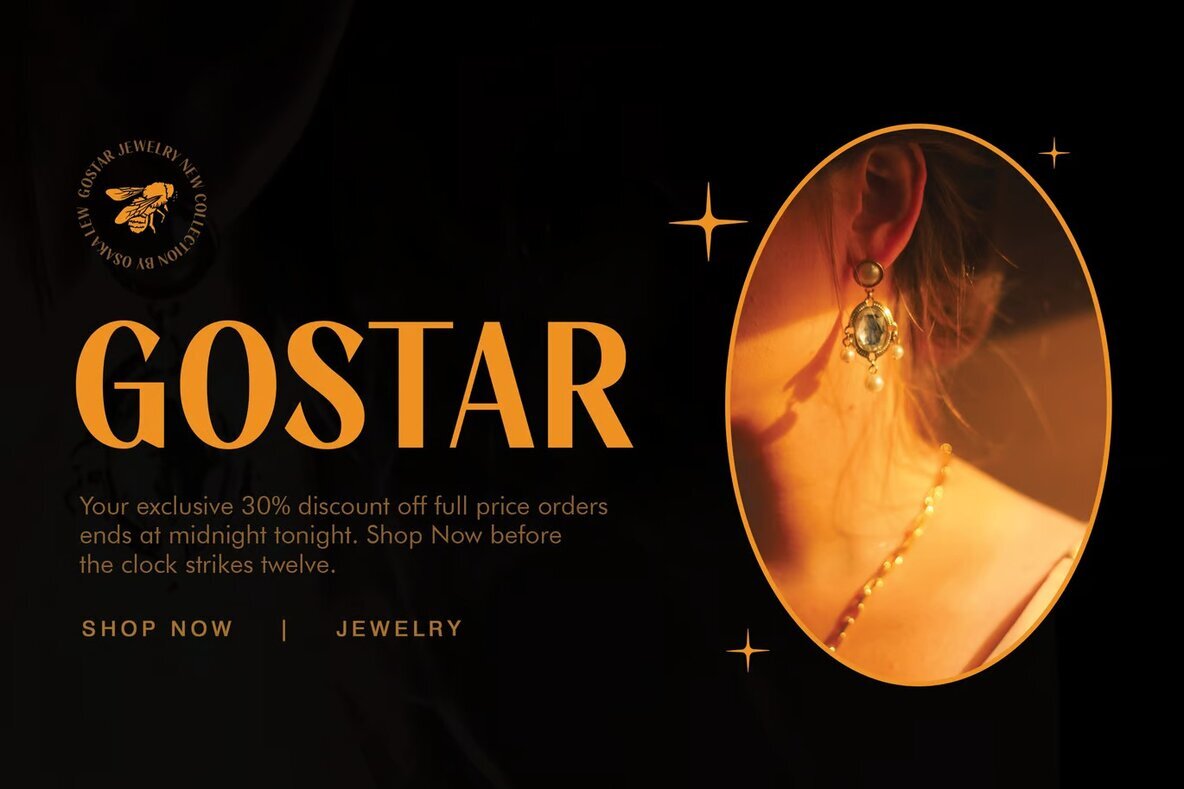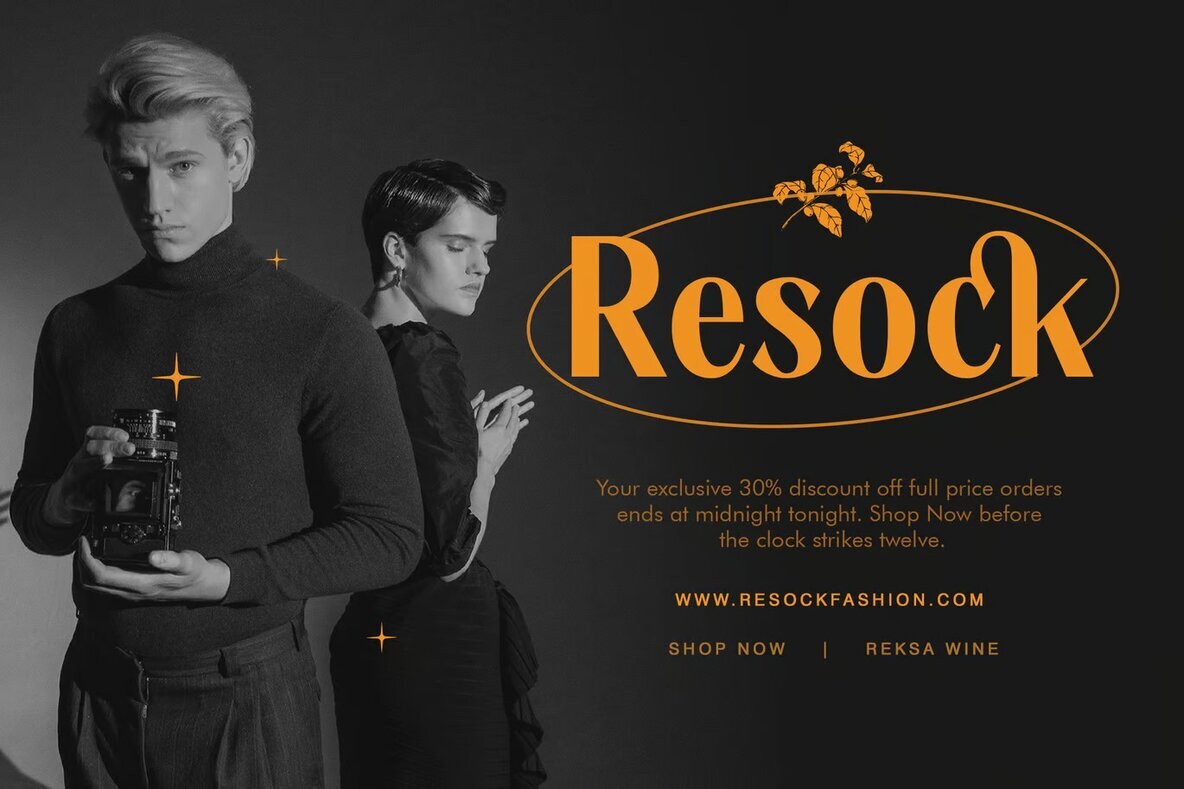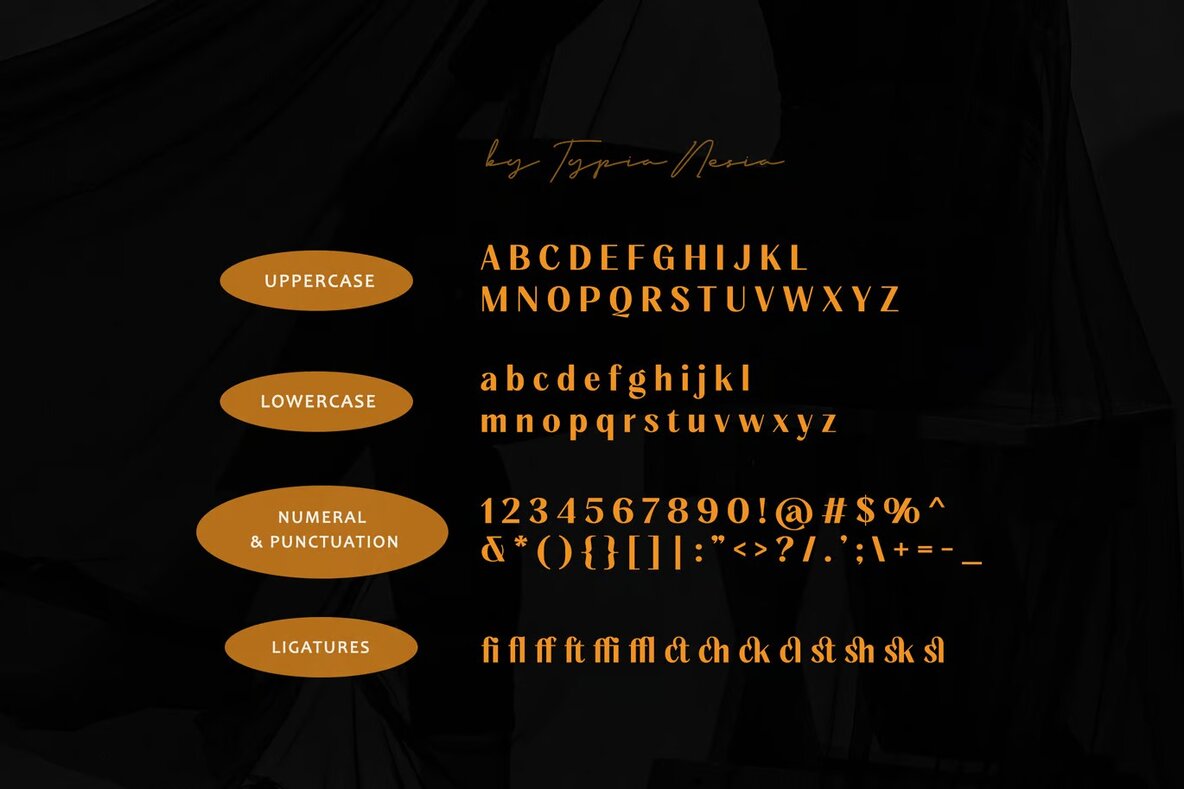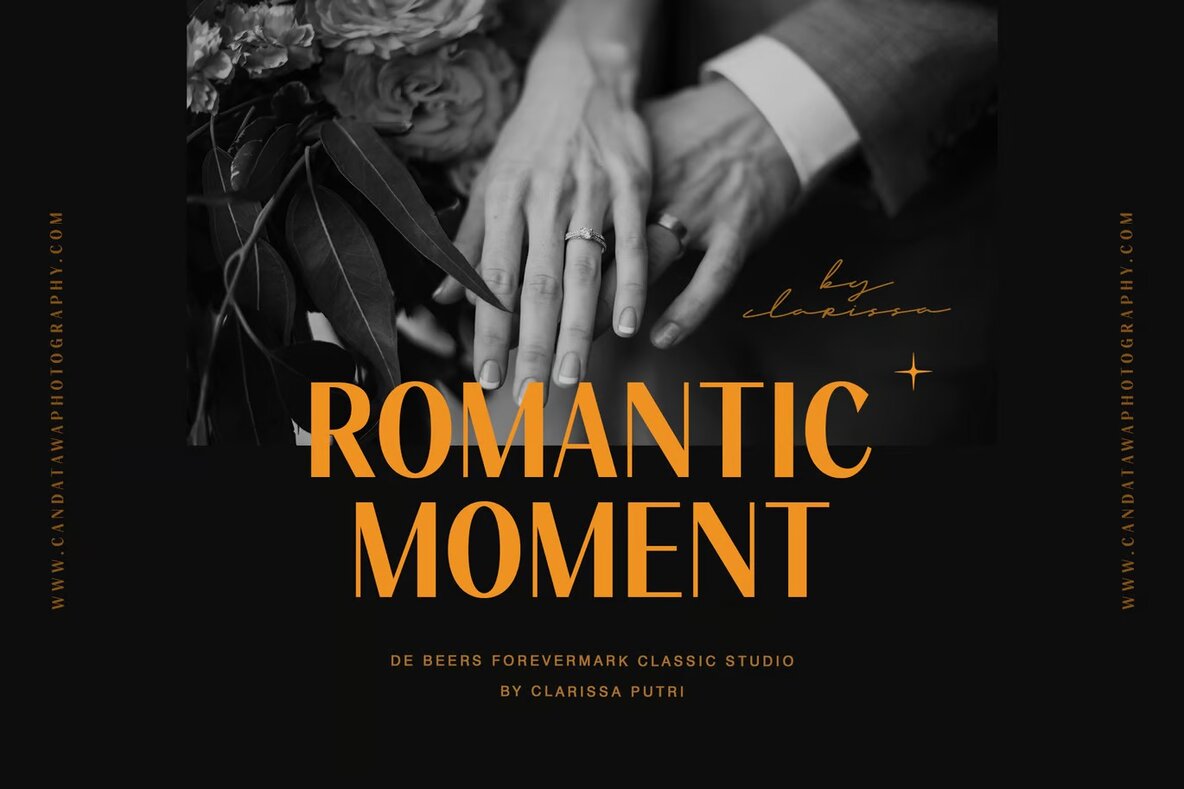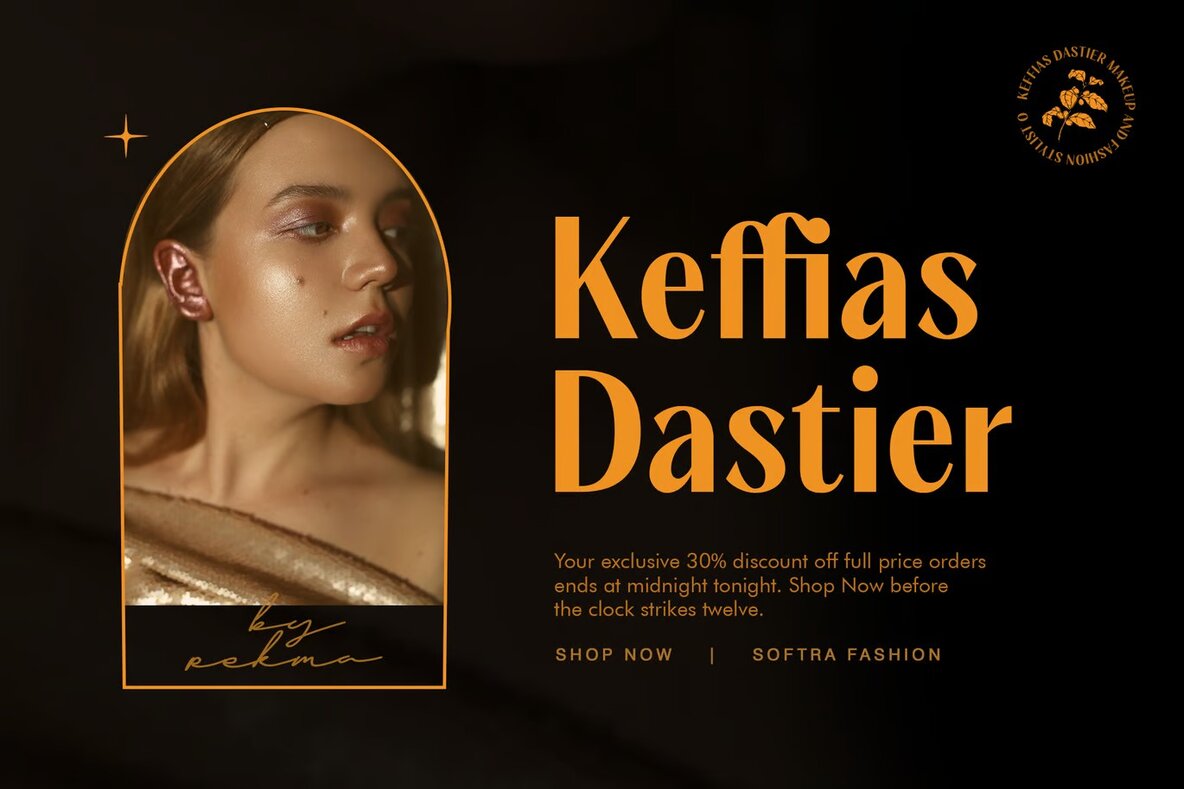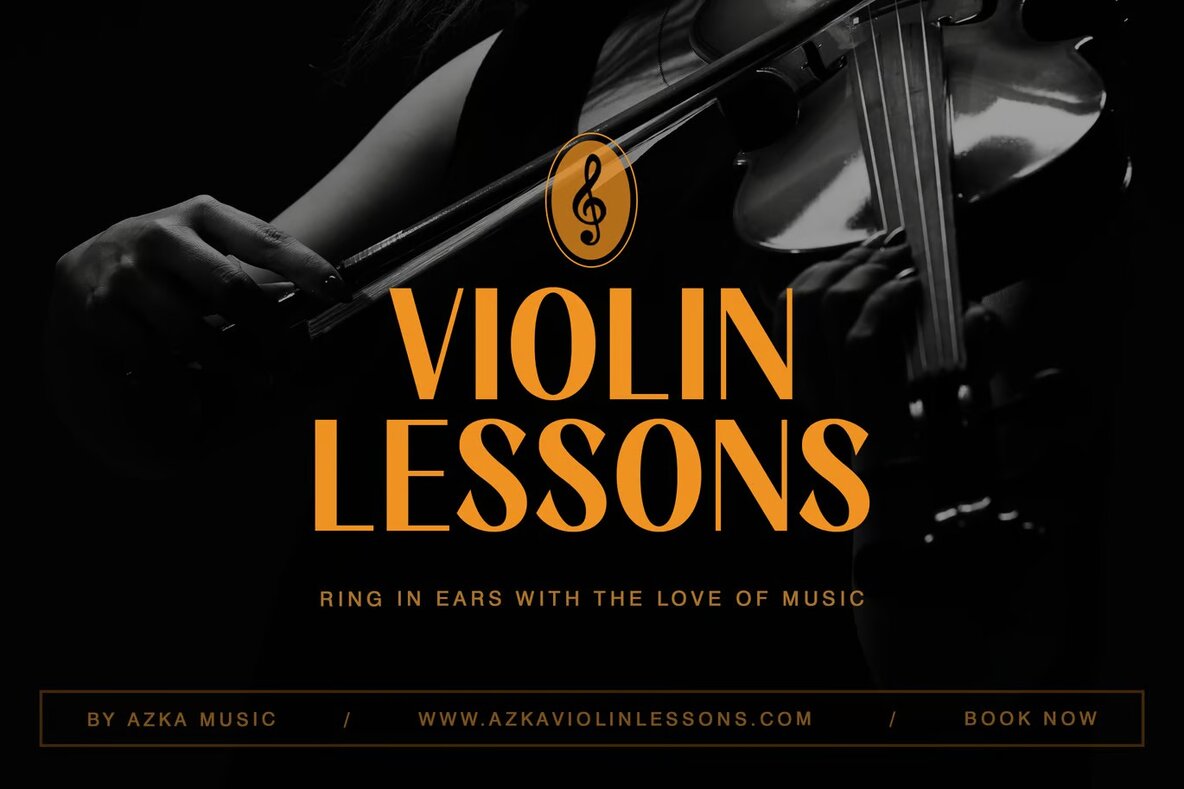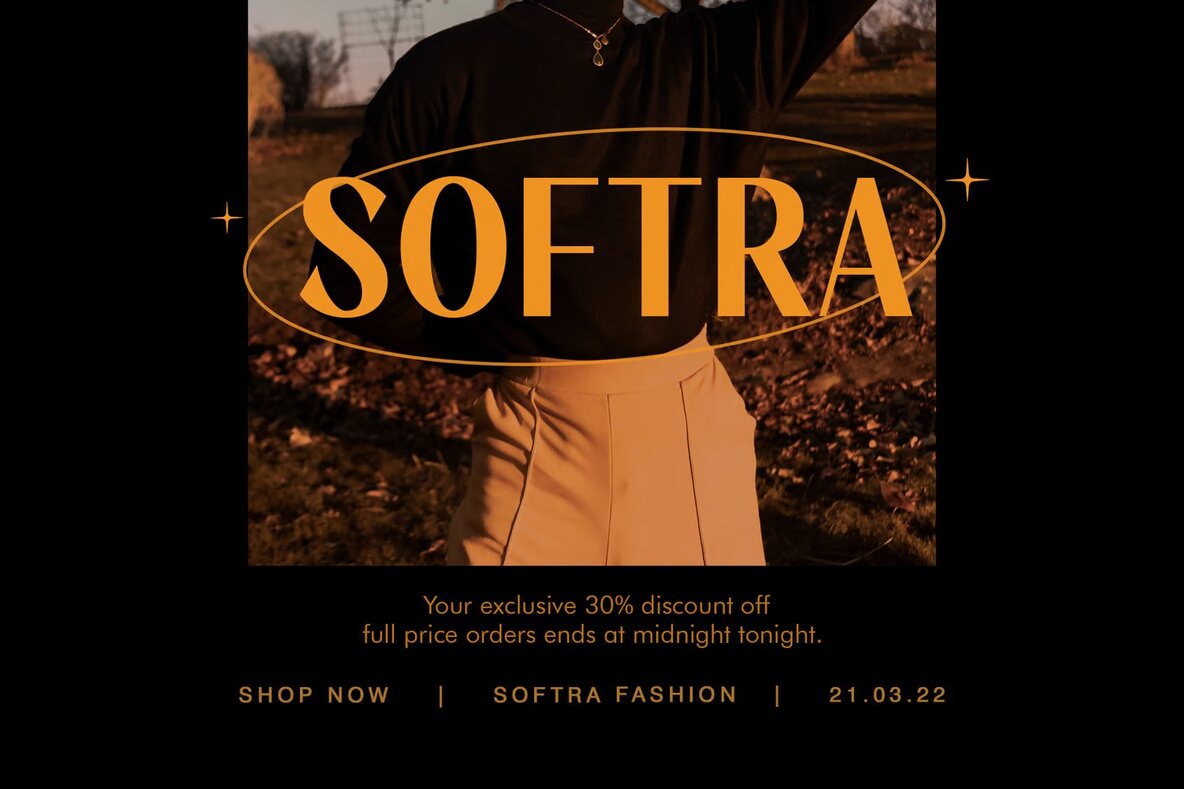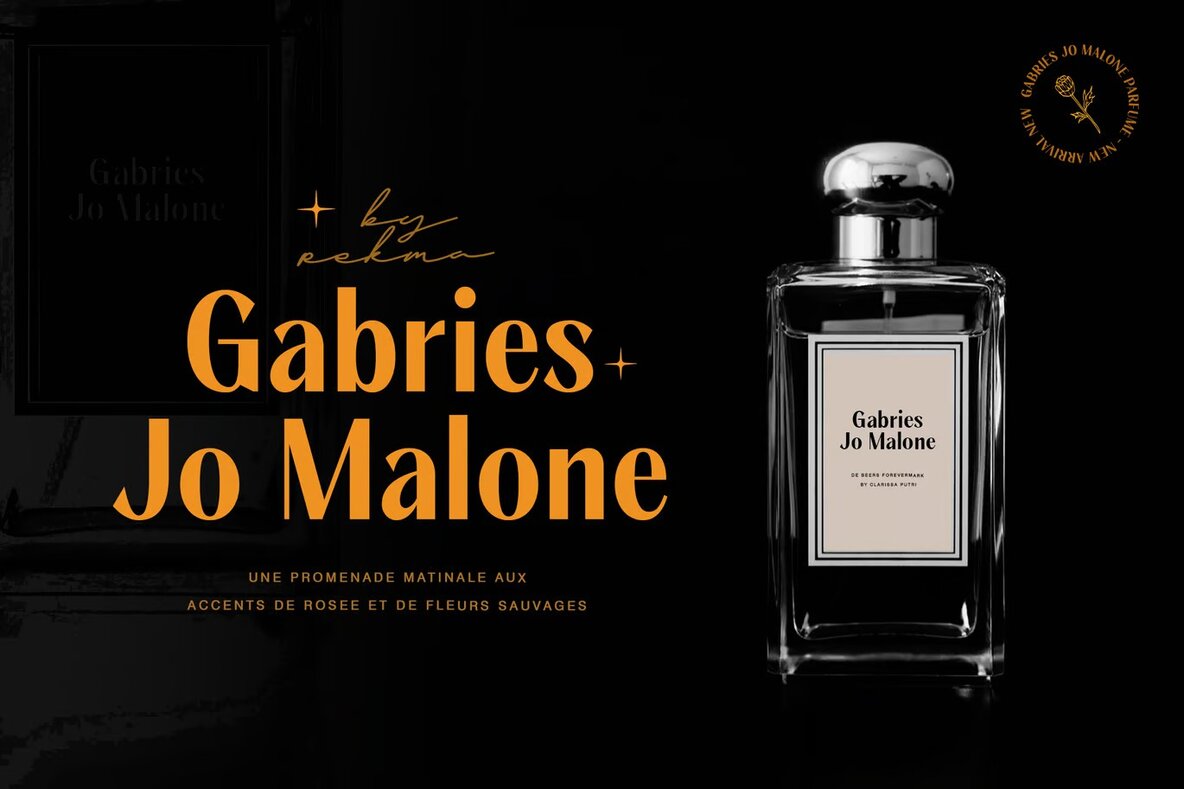
Maveryn Font
Maveryn Regular
Maveryn Sans is a modern sans-serif font that exudes classic beauty and sophistication. With its clean and refined design, Maveryn Sans is ideal for a variety of projects including wedding invitations, branding, logos, and editorial designs. The font features a harmonious balance of thick and thin strokes, creating a striking contrast that adds an extra touch of elegance to any design.
Perfect for capturing the essence of timeless beauty, Maveryn Sans brings a refined and stylish aesthetic to your work. Its versatility and attractive style make it a go-to choice for projects that require a romantic and elegant tone. Whether for special events or professional branding, Maveryn Sans sets a distinguished tone with its sophisticated charm.